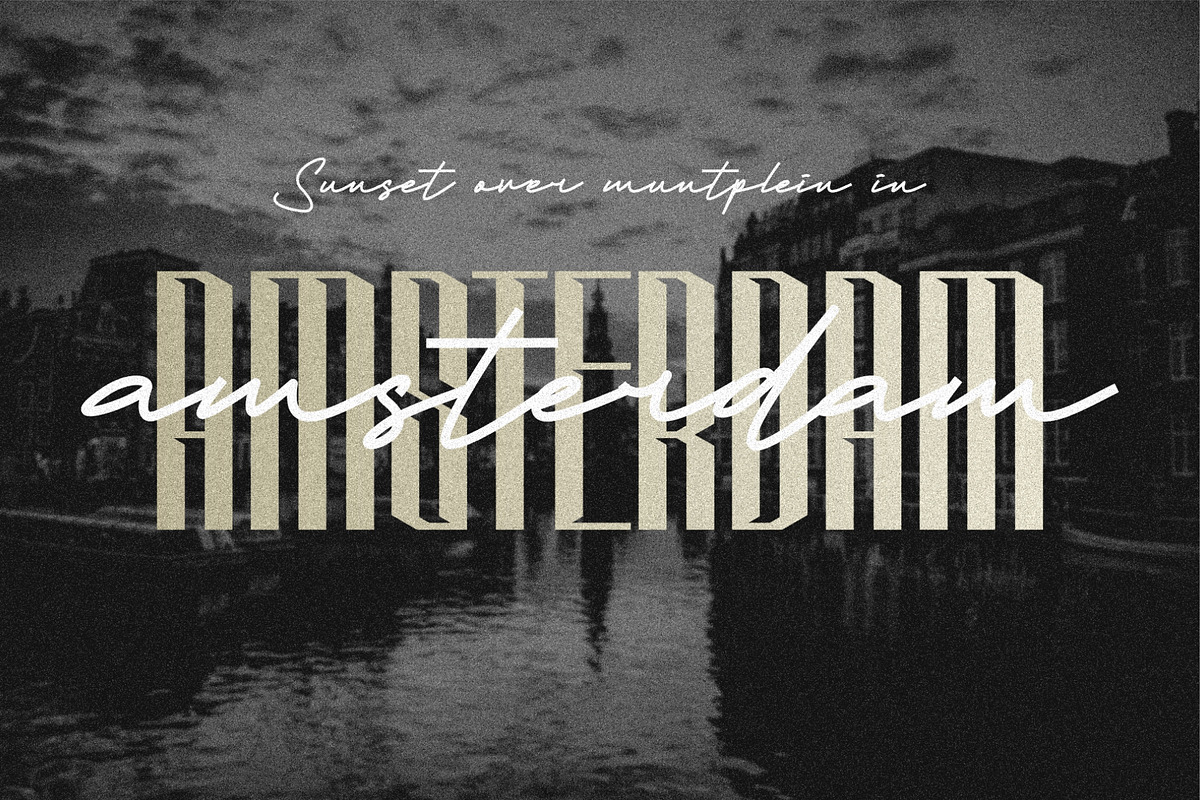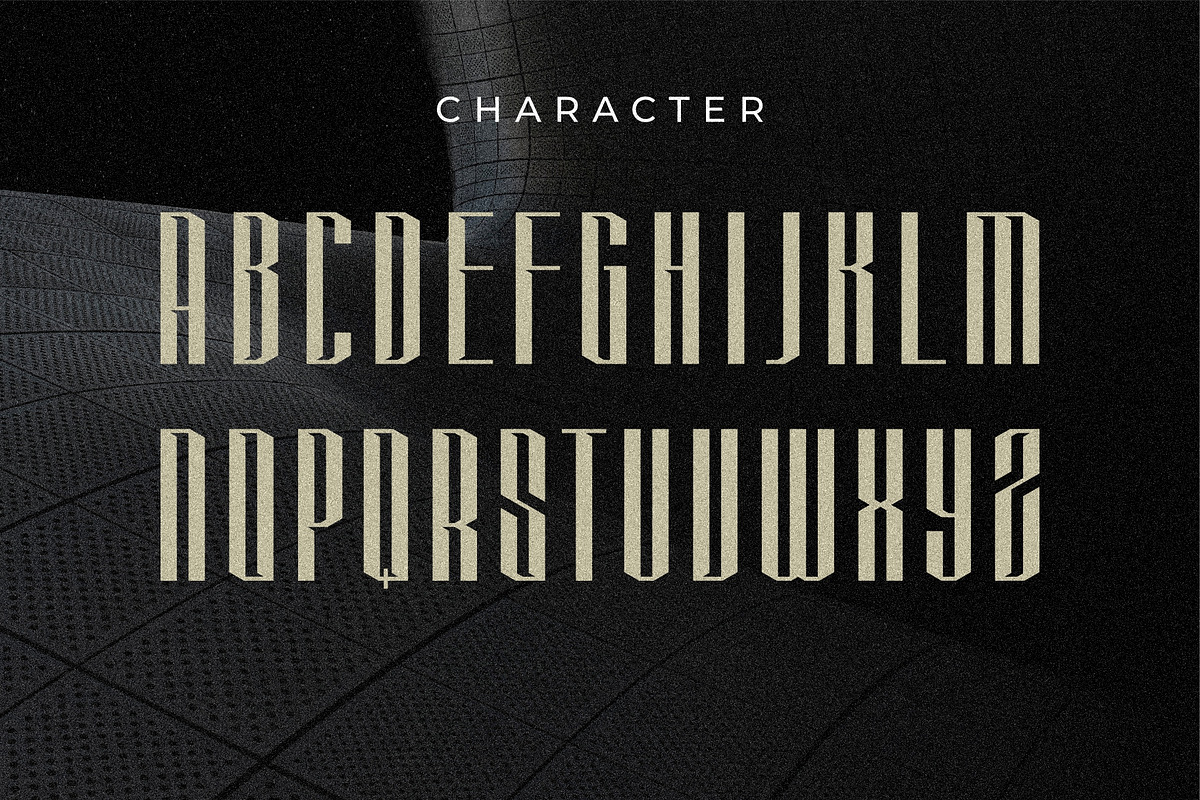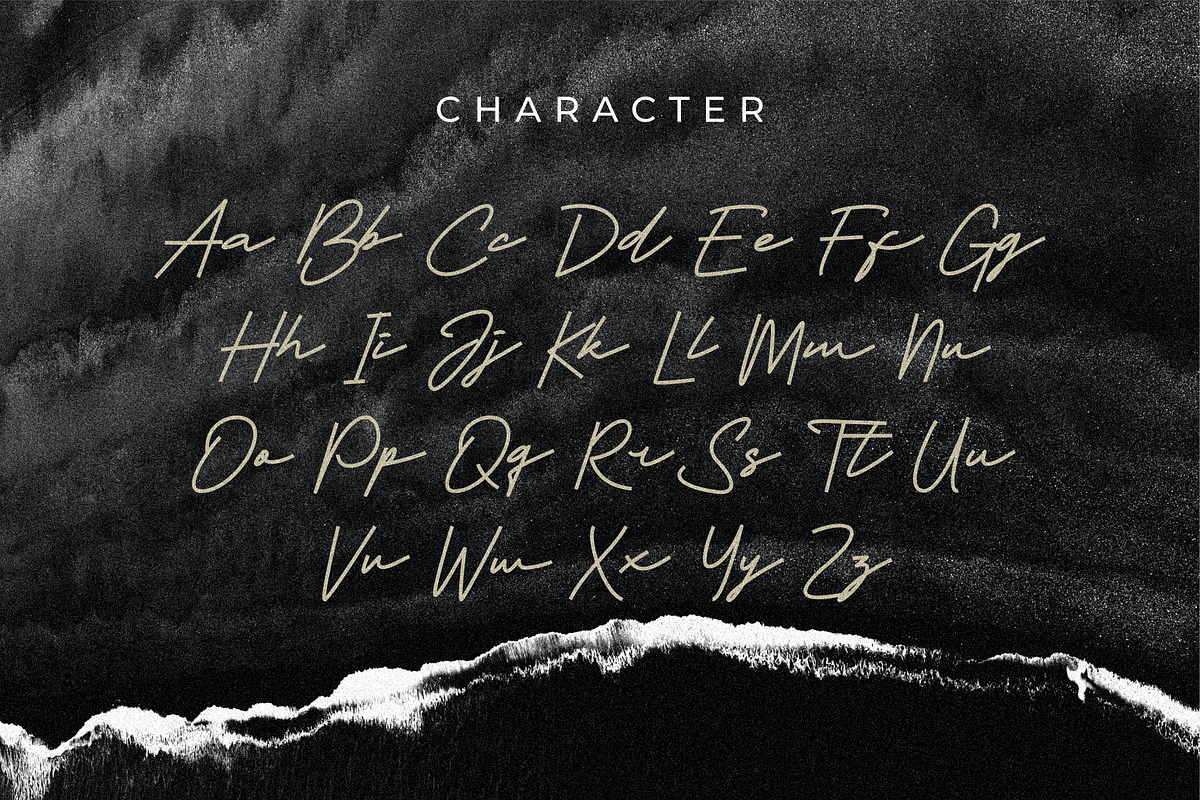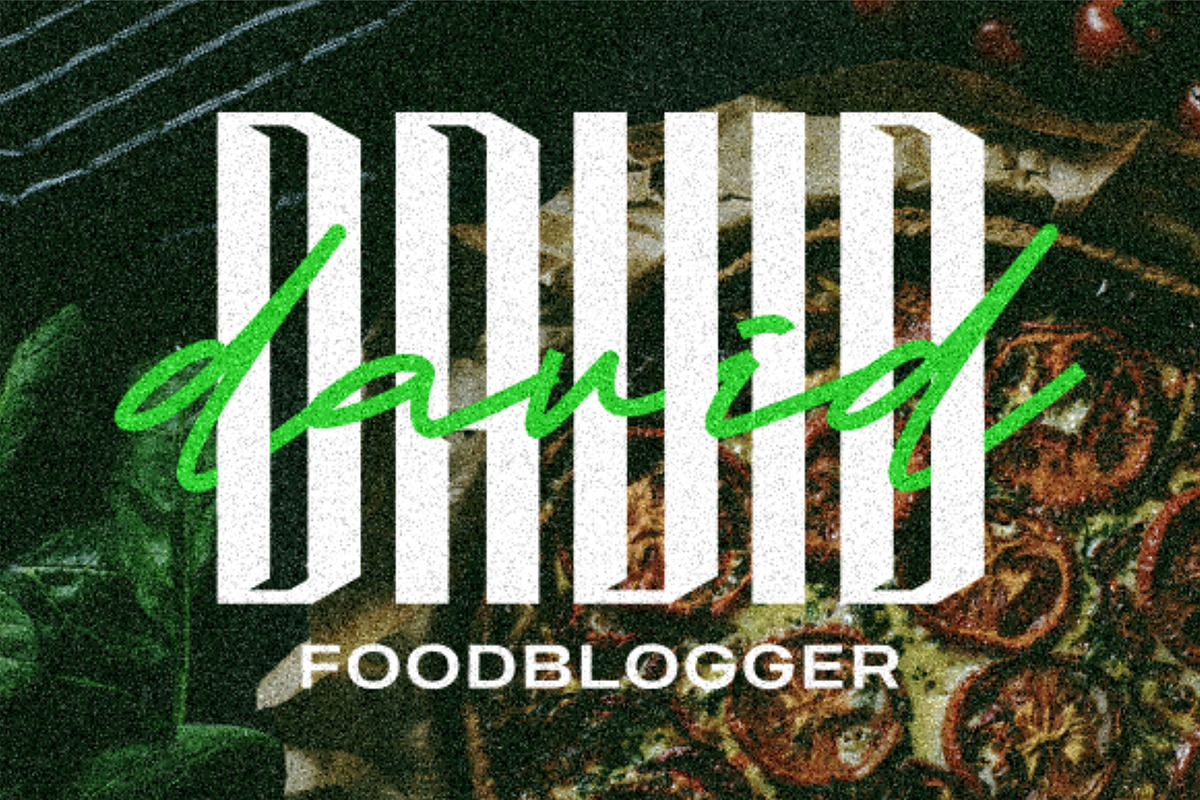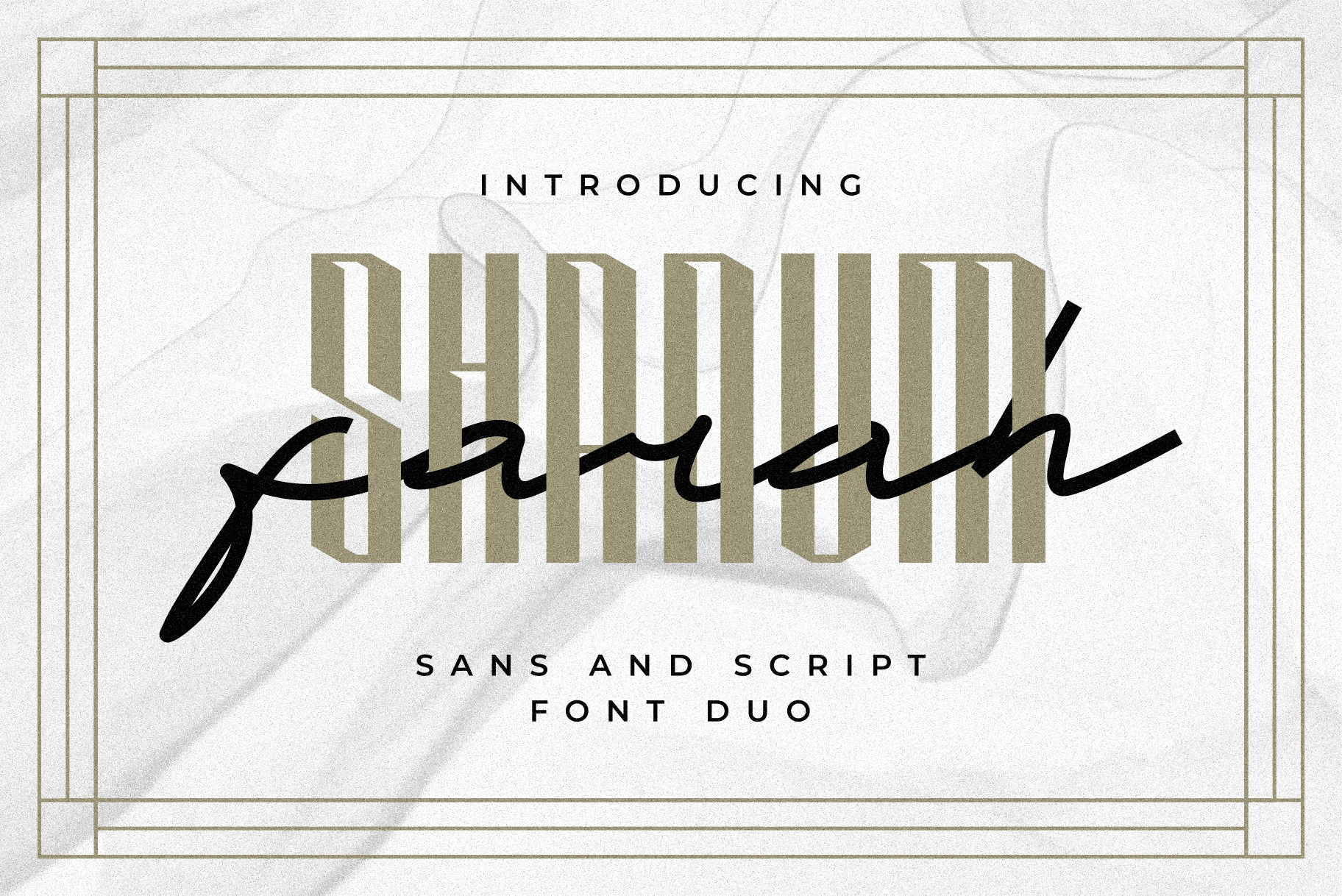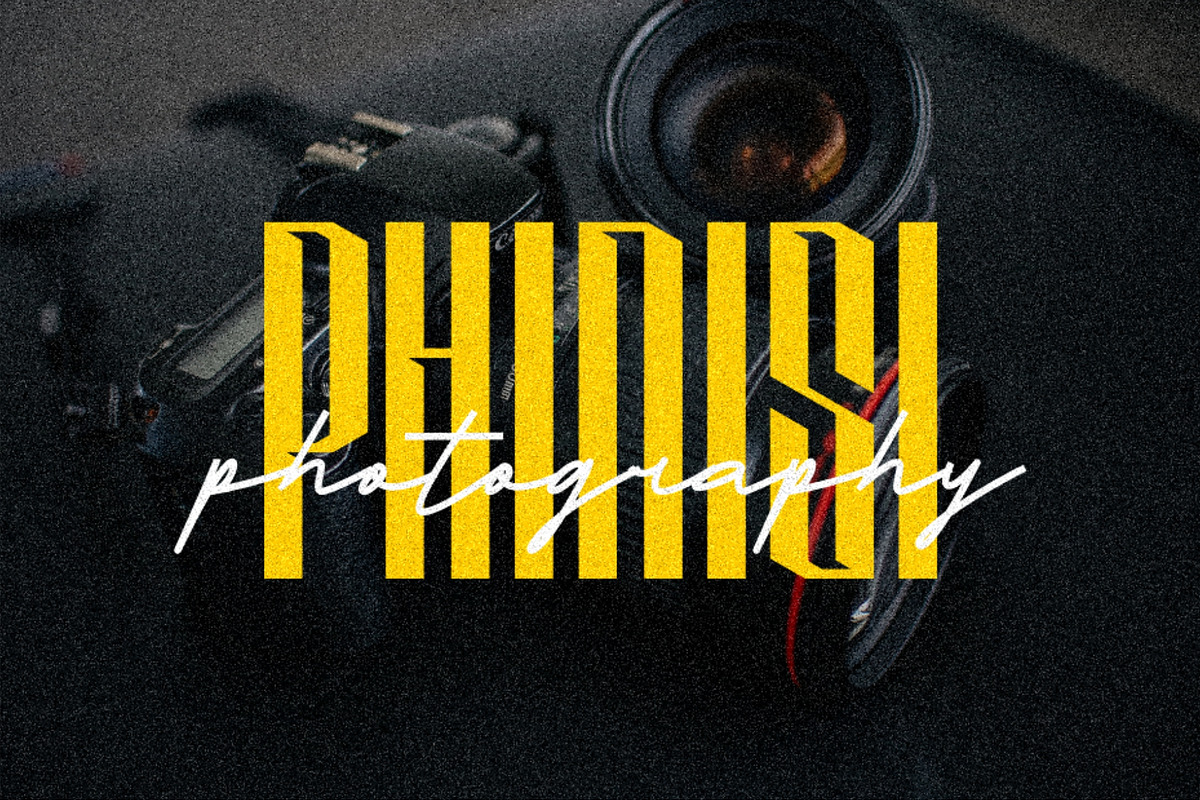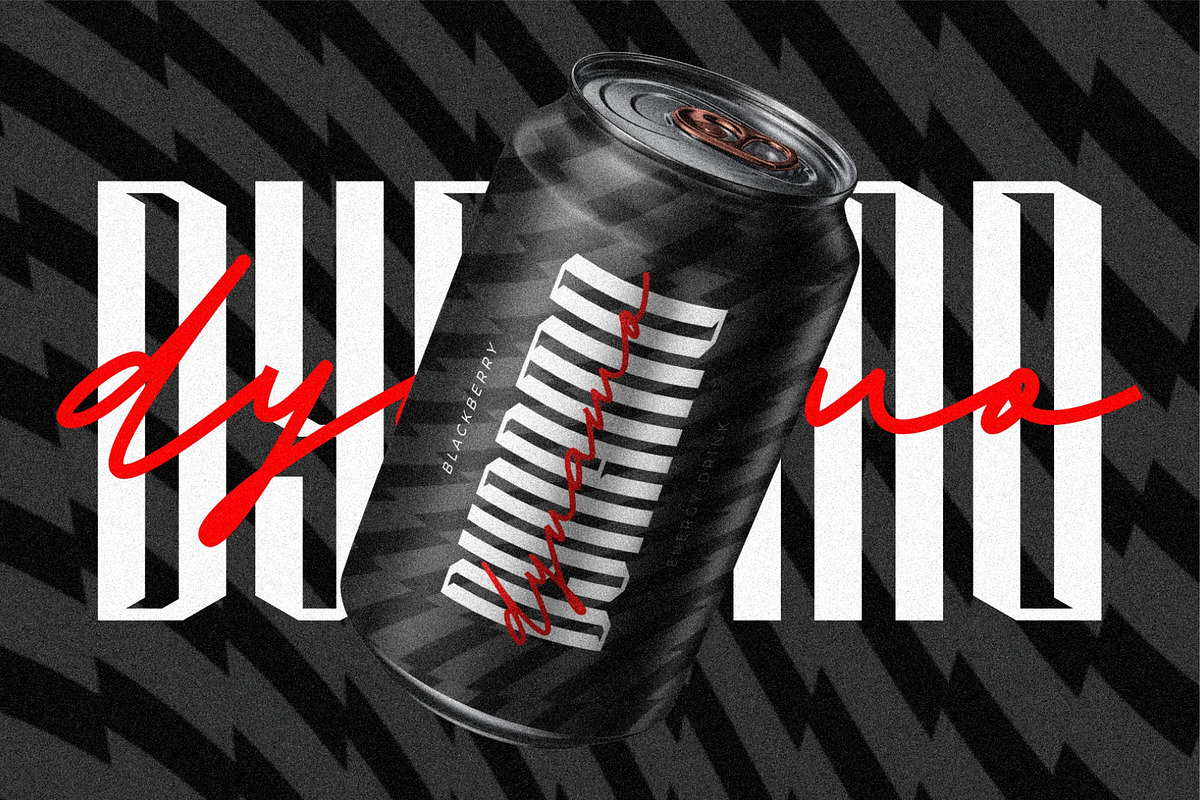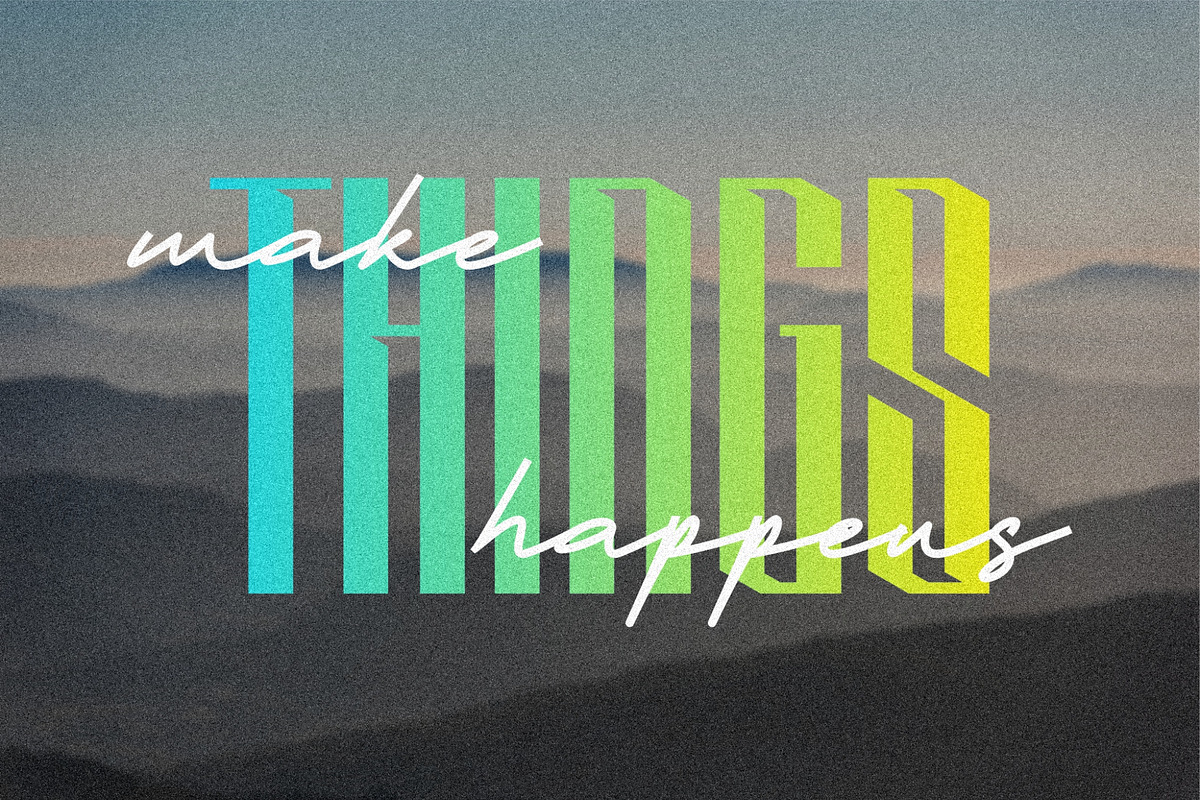
Farah Shanum - Font Duo
Farah Shanum is a modern and charming font duo. When combined, these two fonts will add a unique spark to any design project!
Farah Shanum perfect for branding projects, logo, wedding designs, social media posts, advertisements, product packaging, product designs, label, photography, watermark, invitation, stationery and any projects.